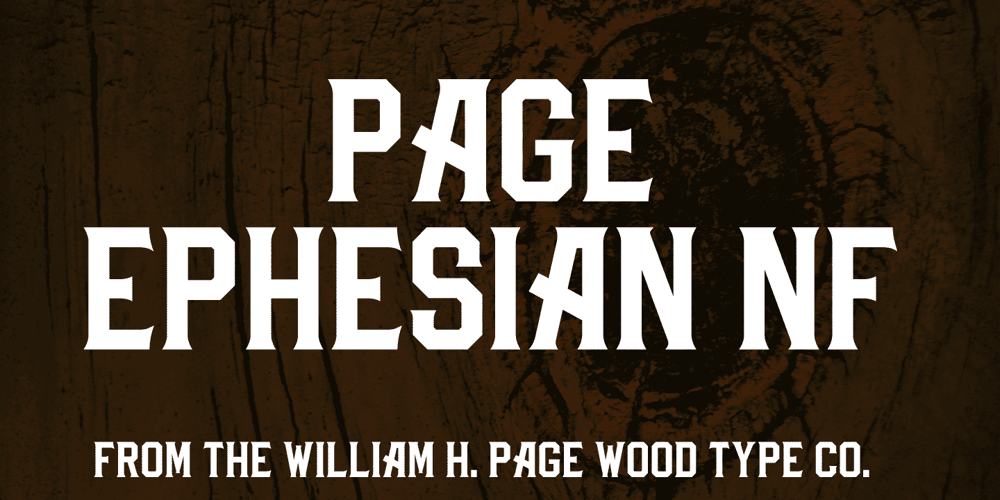
Page Ephesian NF
Page Ephesian NF font
Page Ephesian NF Font Family was designed by published by Nick’s Fonts. Page Ephesian NF contains 1 styles and family package options. A clean, classic woodtype face from the William H. Page Company, as fresh today as it was over 120 years ago. Both versions of this font support the Latin 1262, Central European 1250, Turkish 1254 and Baltic 1257 codepages.